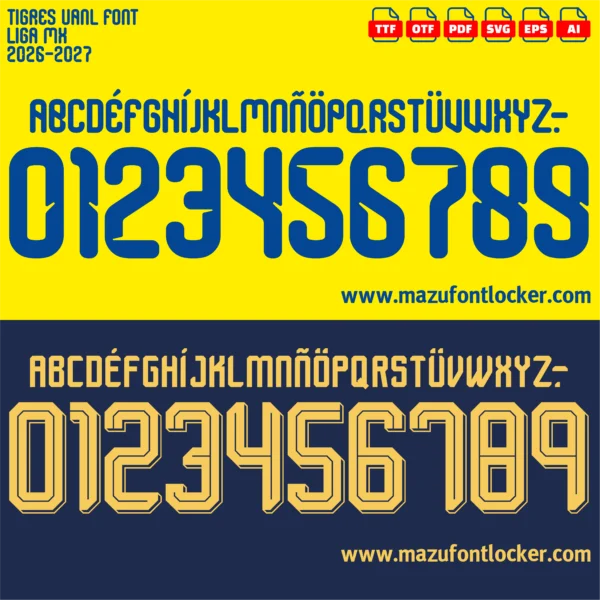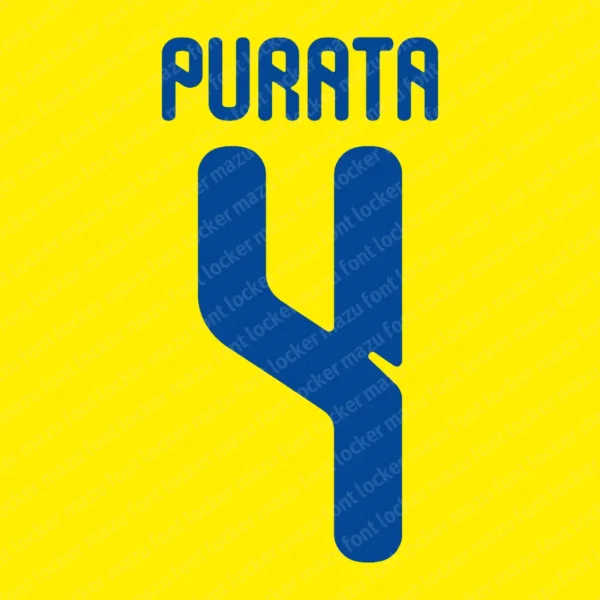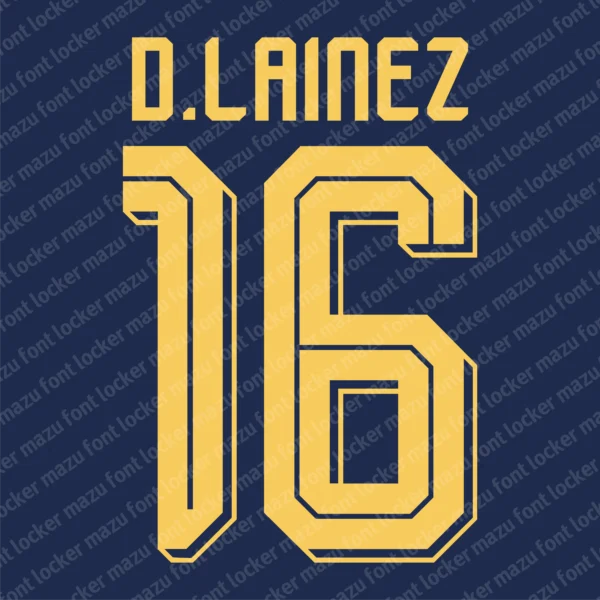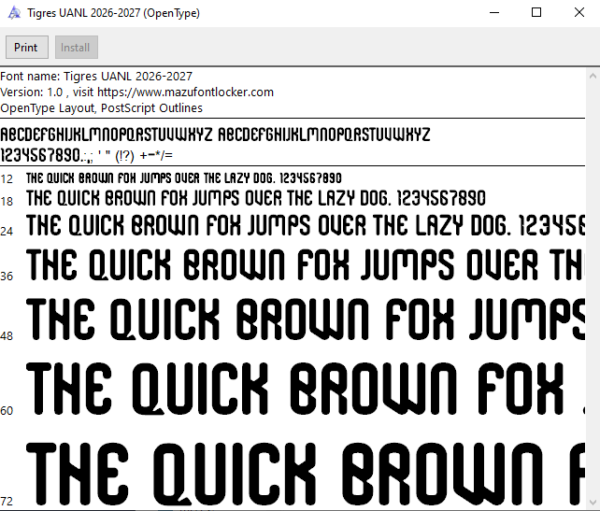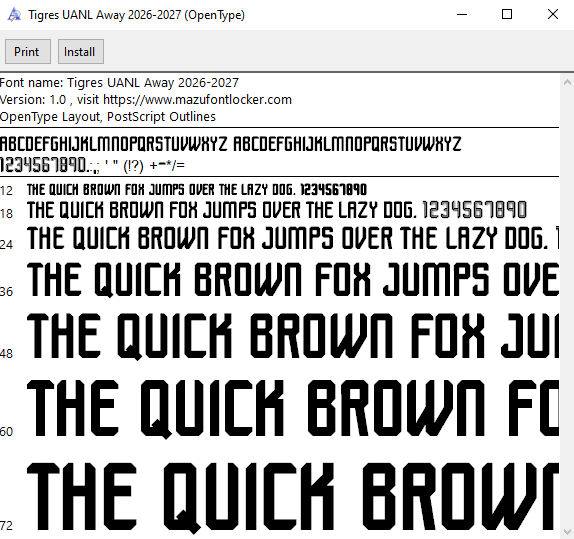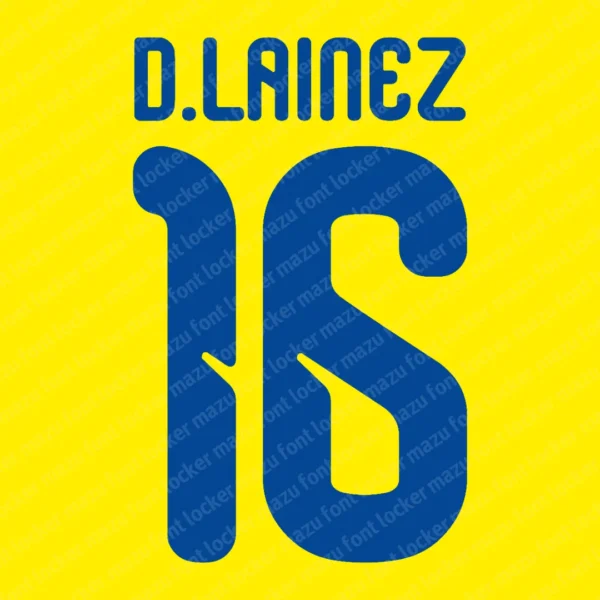
Tigres UANL 2026-2027 Font Vector – Epic Tigres Legendary Masterpiece
This font captures the commanding, razor-sharp, and thunderous lettering that perfectly embodies Tigres UANL’s iconic club identity, proud Nuevo León heritage, never-say-die mentality, and raw Mexican football power — delivering unmatched authenticity, premium quality, volcanic energy, and elite Liga MX dominance for professional jersey mockups, dynamic football graphics, premium sports branding, passionate fan creations, and high-end design projects.
Tigres UANL 2026-2027 Font Vector – Iconic Yellow & Blue Typeface
The Tigres UANL 2026-2027 Font Vector is a premium typeface that accurately recreates the official match lettering worn by Tigres UANL during the 2026-2027 season. This high-quality vector font kit captures the bold, fierce, and instantly recognizable typography that perfectly complements the club’s iconic yellow and blue identity.
Why Choose Tigres UANL 2026-2027 Font Vector
This font stands out thanks to its precise vector construction and authentic club styling. Every letter and numeral has been meticulously recreated to match the official shirt lettering used throughout the 2026-2027 Liga MX and international campaigns. Whether you’re producing professional kit templates or creating eye-catching football content, the Tigres UANL 2026-2027 Font Vector delivers a genuine match-ready appearance.
The lettering featured in the Tigres UANL 2026-2027 Font Vector combines clean geometric lines with powerful modern proportions. The result is a premium and highly readable typeface that reflects Tigres UANL’s winning spirit, fierce mentality, and passionate fanbase.
- Complete uppercase A–Z alphabet and numbers 0–9 in authentic Tigres UANL 2026-2027 style
- Includes authentic Liga MX badge glyph placement beneath player numbers
Tigres UANL 2026-2027 Season
The 2026-2027 season promises to be another competitive chapter for Tigres UANL as they fight for titles in Liga MX and international competitions. Wearing their signature yellow and blue colors, the club continues to embody strength, ambition, and pride.
The Tigres UANL 2026-2027 Font Vector is an independently designed typeface package inspired by the official shirt lettering for the 2026-2027 season. It has been carefully recreated for football enthusiasts, graphic designers, collectors, and creators producing custom jersey concepts, football artwork, and fan-made projects.